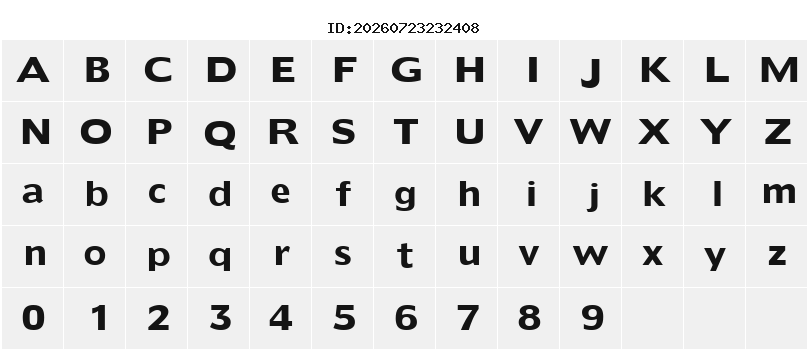
• Font Name: Extens SSi
• Full Font Name: Extens SSi Bold
About Extens SSi.ttf
Extens SSi.ttf is a modern, elegant sans-serif font designed for ultimate readability and visual harmony. Perfect for branding, headlines, web design, and print materials.